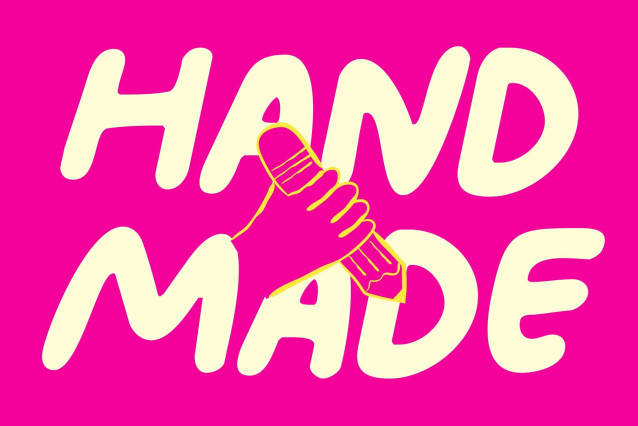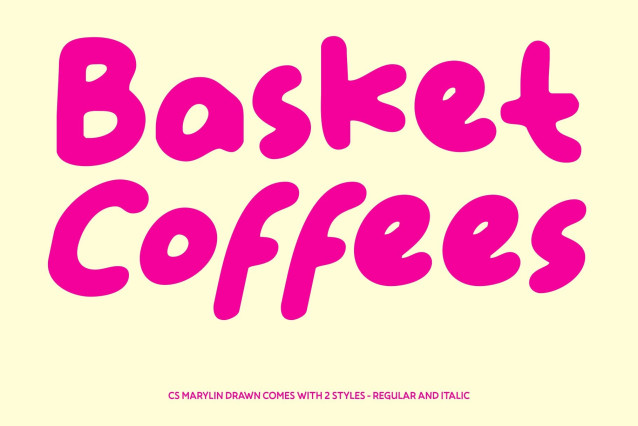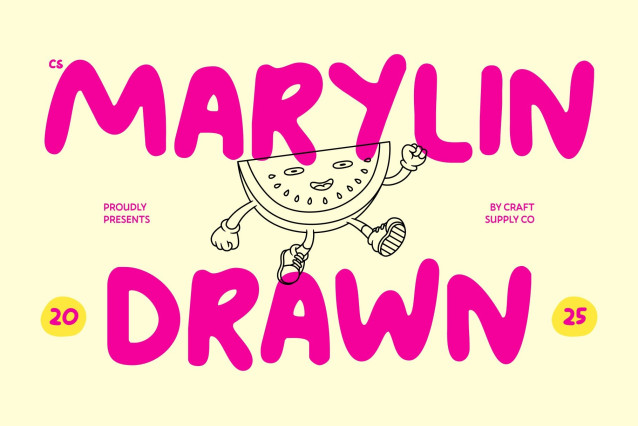
CS Marylin Drawn Font
CS Marylin Drawn Font – This is a cute display font created to radiate joy, charm, and cheerful energy. Enhanced with a hand-drawn effect, each letter feels lively and personal, giving the font a warm, handcrafted personality. Its playful construction delivers a joyful visual tone, making designs feel friendly, expressive, and full of positive emotion.
Bouncy Shapes with Artistic Drawn Character
The slightly irregular, bouncy letterforms create a sense of movement and rhythm across your text. This drawn texture adds an artistic touch, making every character feel alive and spontaneous. The playful bounce gives your layouts a dynamic presence, ensuring designs feel energetic, whimsical, and visually engaging.
Soft Strokes for Approachable and Lighthearted Designs
Rounded strokes and smooth curves enhance readability while preserving the font’s cute and cheerful style. The hand-drawn details soften each letter, making text feel approachable and human. This balance between clarity and charm allows your message to communicate warmth, fun, and friendliness with ease.
Perfect for Kids’ Projects, Parties, and Fun Branding
This font shines in children’s projects, party invitations, playful branding, posters, and social media graphics. From educational materials to festive visuals and whimsical logos, this font adds a joyful, memorable personality. Its bouncy forms and drawn texture turn every design into a delightful and engaging experience.